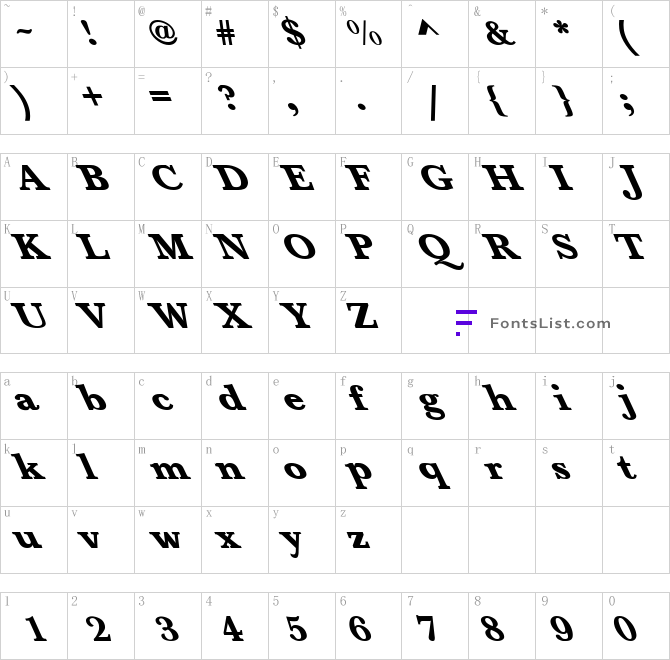
- Font Name:Baskerville-Bold Extreme Lefty
Baskerville-Bold-Extreme-Lefty.ttf is a very beautiful artistic font, Baskerville-Bold-Extreme-Lefty.ttf is widely used in the design and printing of various books and pictures,Baskerville-Bold-Extreme-Lefty.ttf has a strong visual impact,Baskerville-Bold-Extreme-Lefty.ttf is a commonly used font in newspapers, magazines and books, and is used in posters, e-commerce Poster design, store design, logo design, font design and other fields.Baskerville-Bold-Extreme-Lefty.